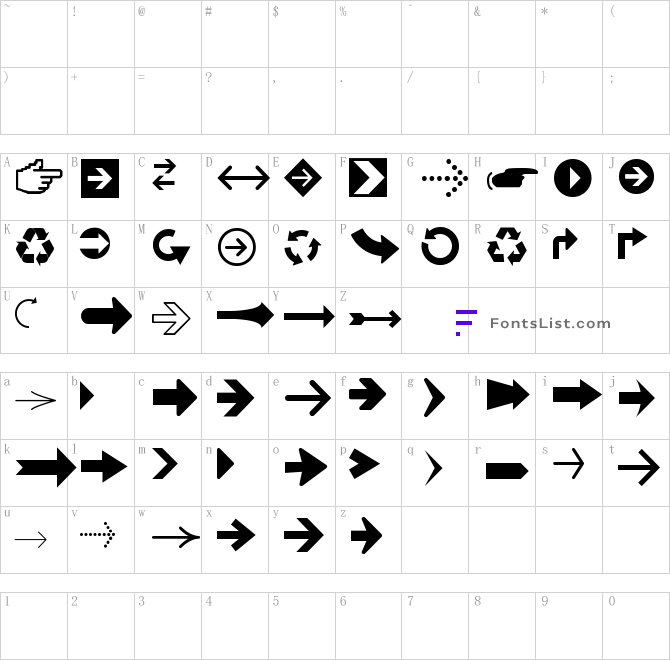
- Font Name:Arrows tfb
Arrows-tfb.ttf is a very beautiful artistic font, Arrows-tfb.ttf is widely used in the design and printing of various books and pictures,Arrows-tfb.ttf has a strong visual impact,Arrows-tfb.ttf is a commonly used font in newspapers, magazines and books, and is used in posters, e-commerce Poster design, store design, logo design, font design and other fields.Arrows-tfb.